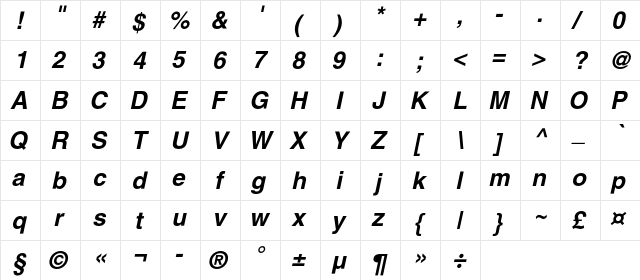
AGLettericaC Bold Italic Font Preview
AGLettericaC Bold Italic
Design Context for AGLettericaC Typeface
AGLettericaC takes a measured approach to typography — its balanced proportions and neutral character make it a reliable workhorse for both digital and print work. The dynamic lean of this cut emphasises speed and emphasis in any layout. The heavy weight commands attention and anchors typographic hierarchies.
Pro Tip: Use AGLettericaC for emphasis, pull quotes, and subheadings where its slanted energy can add rhythm to the layout.